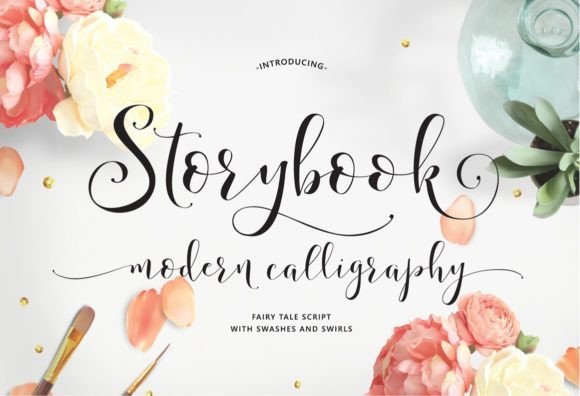
Journey into the realm of enchanting tales with Storybook Font, a script font family that captures the essence of whimsical narratives. This beautifully hand-lettered typeface, meticulously crafted by Emily Spadoni Type & Design, is a feast for the eyes, inviting you to pen down your own magical stories. A font that whispers of forgotten lore and kindles the imagination, Storybook Font is your perfect companion for crafting wedding invitations, logos, and stationery that truly stand the test of time.
With its delicate curves and flowing lines, Storybook Font exudes an aura of elegance and charm. Its captivating swashes and intricate flourishes add a touch of whimsy, lending a sense of enchantment to your written words. The font's generous character set, encompassing a range of glyphs and swashes, empowers you to unleash your creativity and weave tales of wonder, love, and adventure.
Storybook Font is more than just a font; it's an invitation to embark on a literary voyage. Its enchanting characters dance across the page like sprites, guiding you through enchanted forests, whispering secrets of faraway lands, and painting pictures of worlds yet undiscovered. Let Storybook Font be your muse, inspiring you to create captivating content that captivates and enthralls readers of all ages.
With its PUA encoding, Storybook Font grants you effortless access to the full spectrum of characters, swashes, and glyphs, making it a breeze to incorporate intricate details and flourishes into your designs. Unleash your imagination and let Storybook Font guide you to create designs that evoke a sense of wonder and transport your audience to realms of boundless imagination.
Dive into the enchanting world of Storybook Font today and discover the boundless possibilities of creative expression. Let your words take flight and let your imagination soar as you craft captivating content that captivates and enthralls readers of all ages. Storybook Font is the key to unlocking a world of wonder and enchantment, transforming your written words into captivating tales that linger in the hearts of your readers.